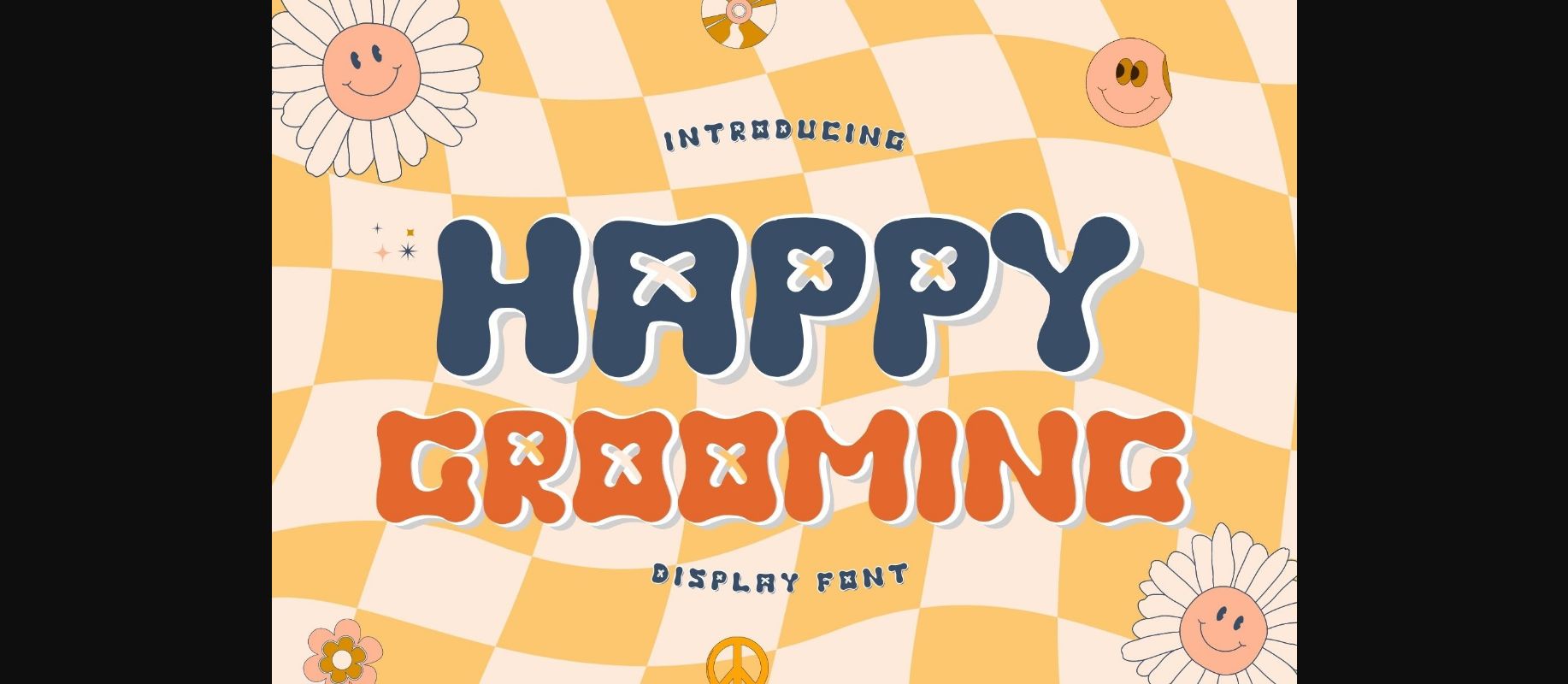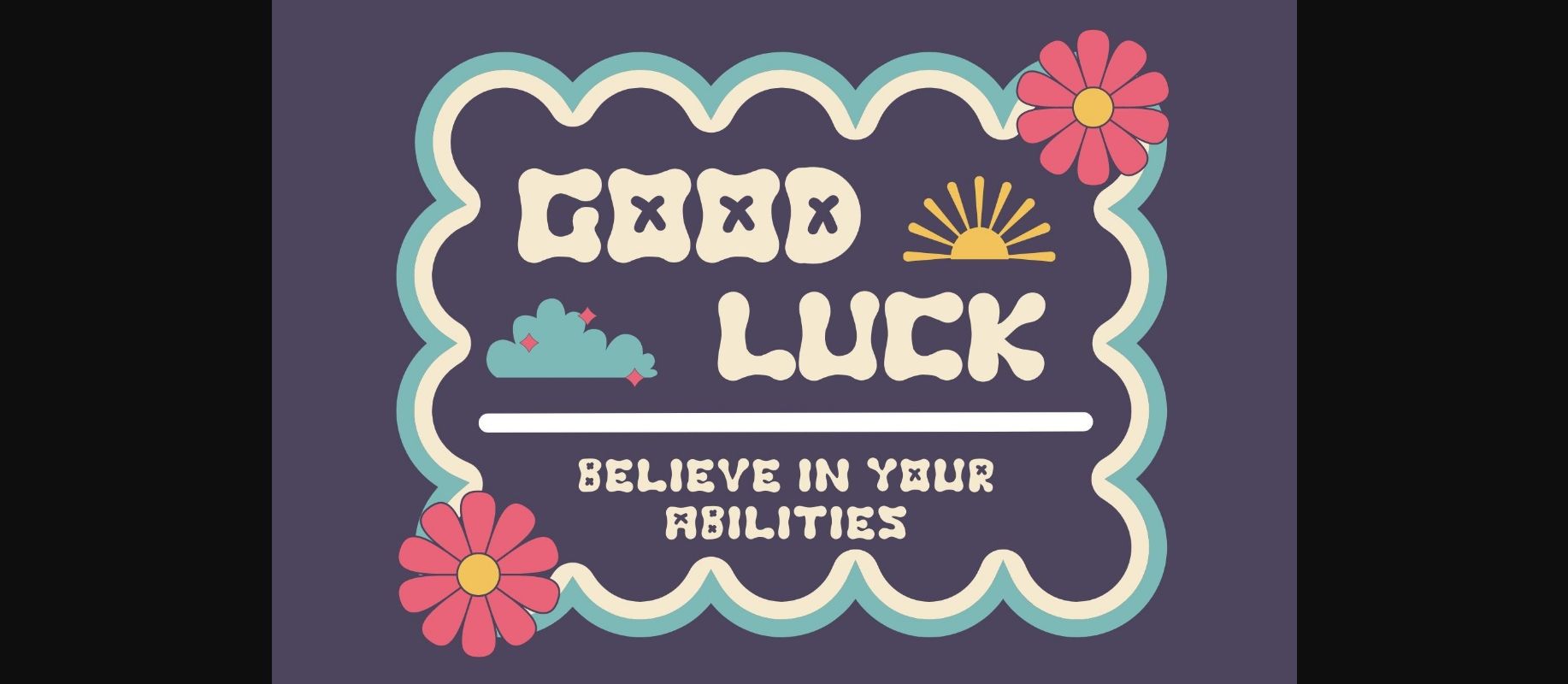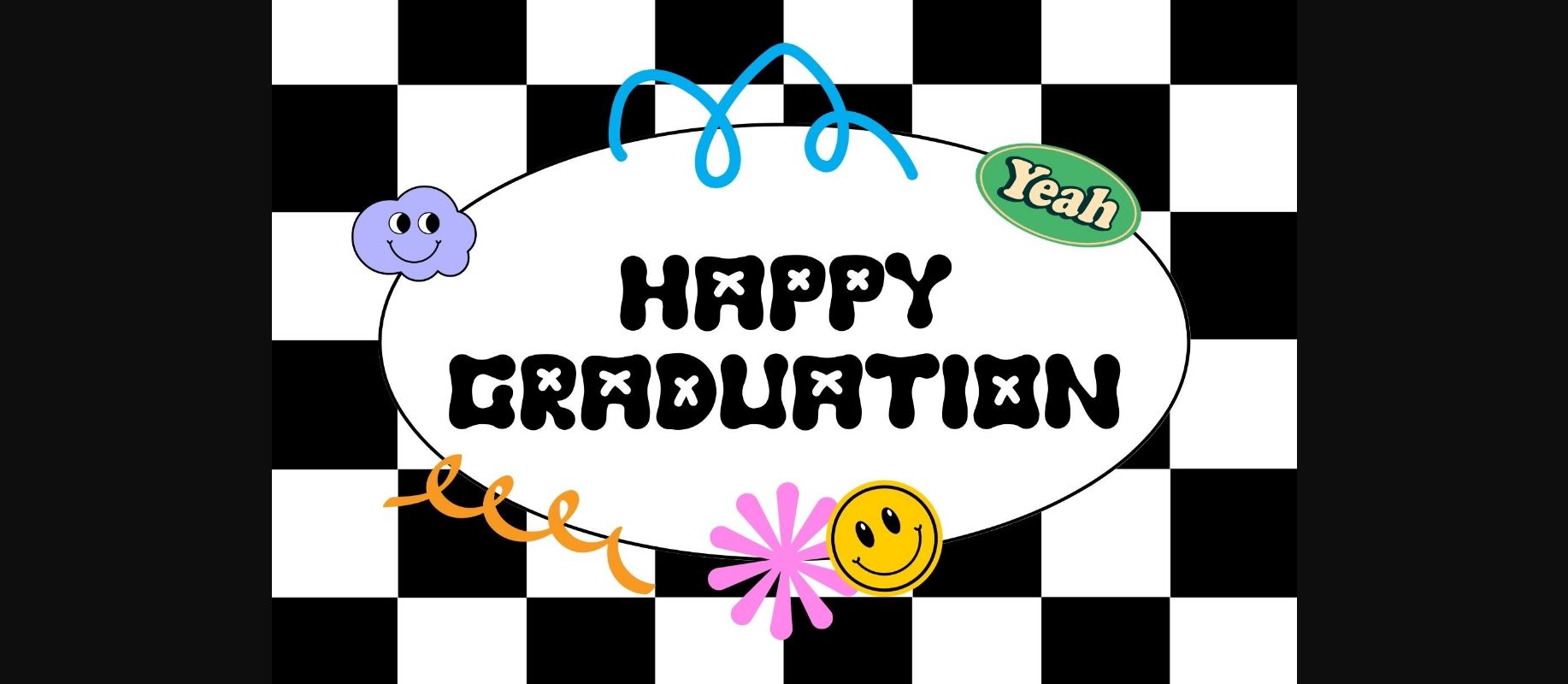
About Happy Grooming Font
Happy grooming is a cute groovy decorative font. It embodies playfulness and authenticity and is the perfect choice for all your favorite projects, or even for blog posts, logos, branding, ads, invitations, greeting cards, planners, photo albums, decorations, and much more. Add it to any of your designs, and enjoy the results!